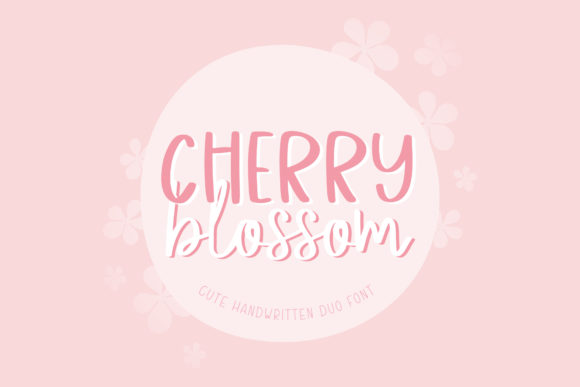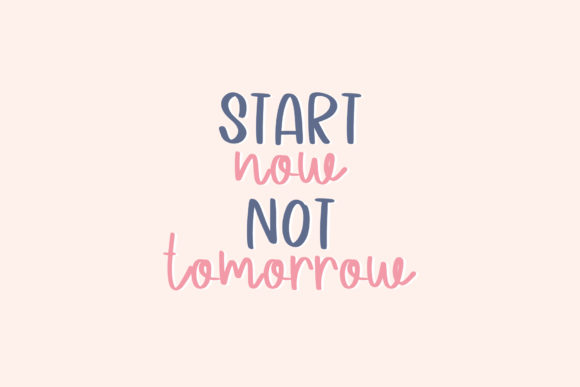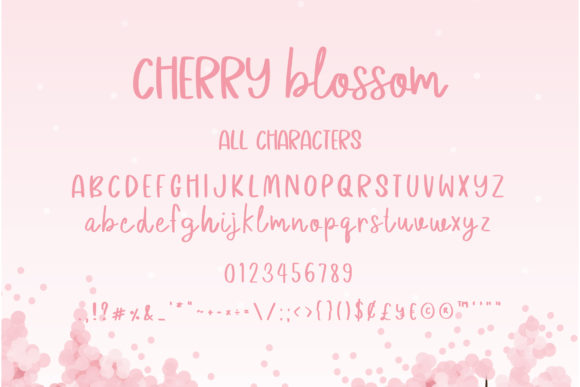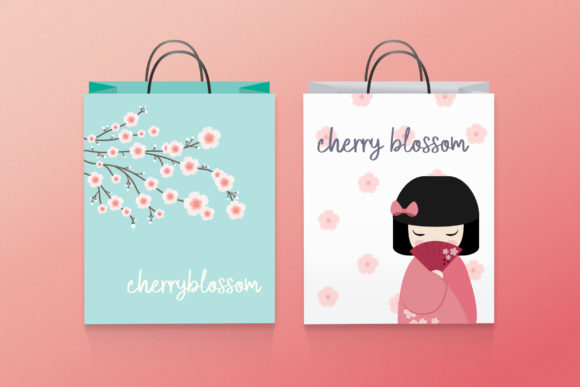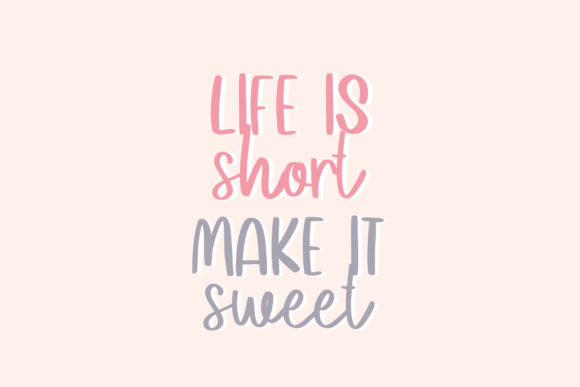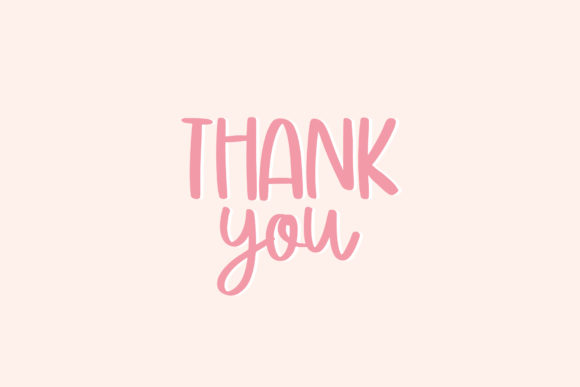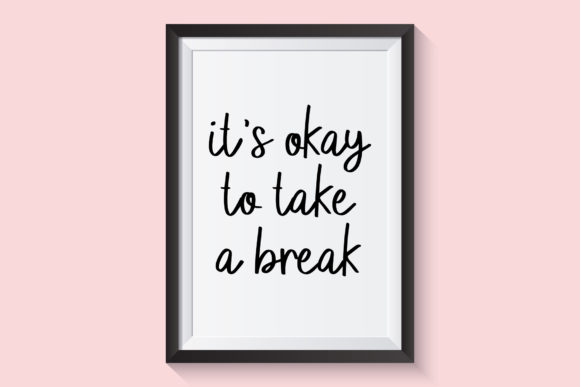
Cherry Blossom Font
About Cherry Blossom Font
Cherry Blossom is a delightful and charming handwritten font that exudes sweetness and delicacy. Its cute and playful style captures the essence of joy and adds a touch of whimsy to any design. With Cherry Blossom, your creative projects will bloom into spectacular works of art.
The font’s smooth and flowing lines emulate the graceful petals of cherry blossoms, creating a sense of lightness and beauty. Each letter is carefully crafted with attention to detail, making Cherry Blossom a perfect choice for projects that require a touch of elegance with a hint of cuteness.
Cherry Blossom’s versatility allows it to adapt seamlessly to a wide range of designs. From greeting cards and invitations to quotes, logos, and social media posts, the font breathes life into every creative idea. Its unique style stands out, making sure your designs leave a lasting impression on your audience.
When used in wedding invitations, Cherry Blossom sets the tone for a romantic and whimsical celebration, evoking a sense of love and joy that mirrors the beauty of cherry blossoms in bloom. Its charm extends to thank-you cards, adding a touch of warmth and gratitude to your messages.
The font’s playful nature makes it an excellent choice for children’s books, art, and educational materials. It instantly engages young readers and creates a friendly atmosphere that sparks curiosity and creativity.
Cherry Blossom also brings a delightful touch to branding and logos, especially for businesses in the fields of beauty, fashion, and lifestyle. Its endearing style adds personality and charm to your brand identity, making it easily recognizable and memorable.
Moreover, Cherry Blossom thrives in social media posts and digital graphics. It creates eye-catching visuals that stand out in a sea of content, captivating audiences and encouraging them to interact and share.
Whether on print or digital media, Cherry Blossom is sure to bring a smile to the faces of those who encounter it. Its sweet and delicate nature, combined with its versatility, makes it a valuable asset for designers, artists, and creative enthusiasts alike.
In conclusion, Cherry Blossom is a sweet and delicate handwritten font that radiates cuteness and charm. Its graceful lines and playful style add a touch of whimsy to any design, making it ideal for a wide range of creative projects. From wedding invitations to logos and social media posts, Cherry Blossom brings joy and beauty to every application. Embrace Cherry Blossom’s cute style and let it elevate your designs, infusing them with the magic of cherry blossoms in full bloom.